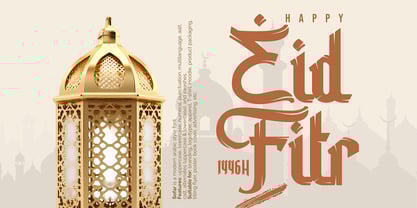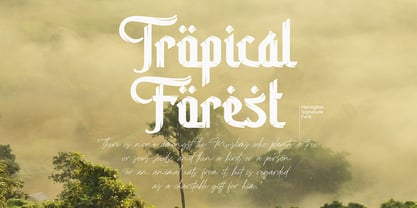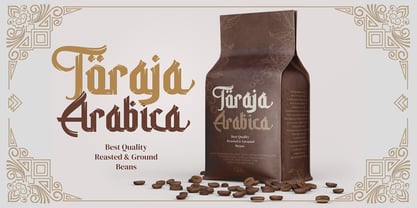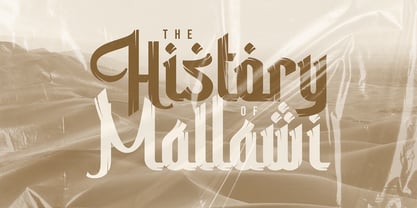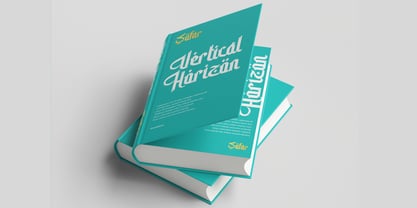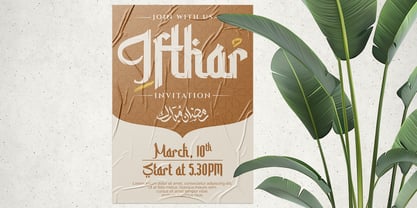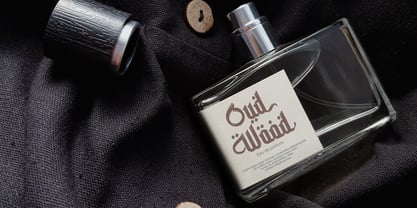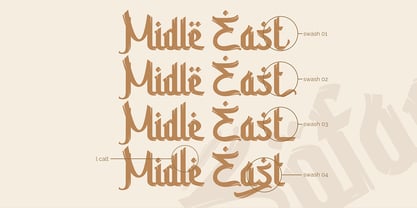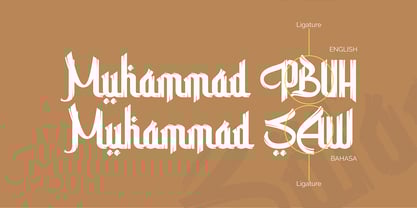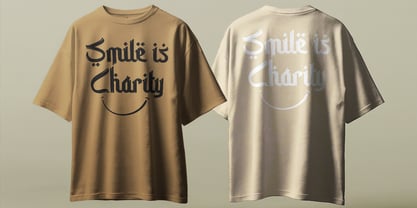
Sofar
by Omotu
The Sofar Font Family was designed by Ibnu Utomo and published by Omotu. Sofar contains 1 styles.
Sofar is a modern arabic style font. This font very usable for designing all kind of graphics design related to Islamic Contents. Sofar font is suitable for heading, branding, logotype, apparel, T-shirt, Hoodie, product packaging, quotes, flyer, poster, book cover, advertising, etc.
4. Features: uppercase, lowercase, numeral, punctuation, multilanguage, aalt, calt, alternates (uppercase & lowercase), and swashes.